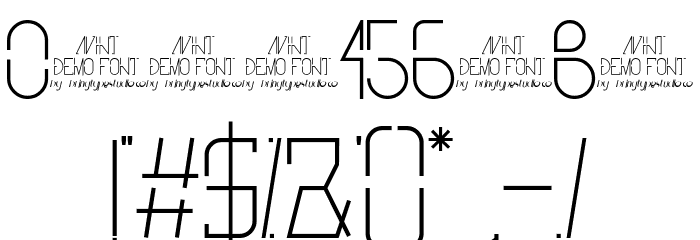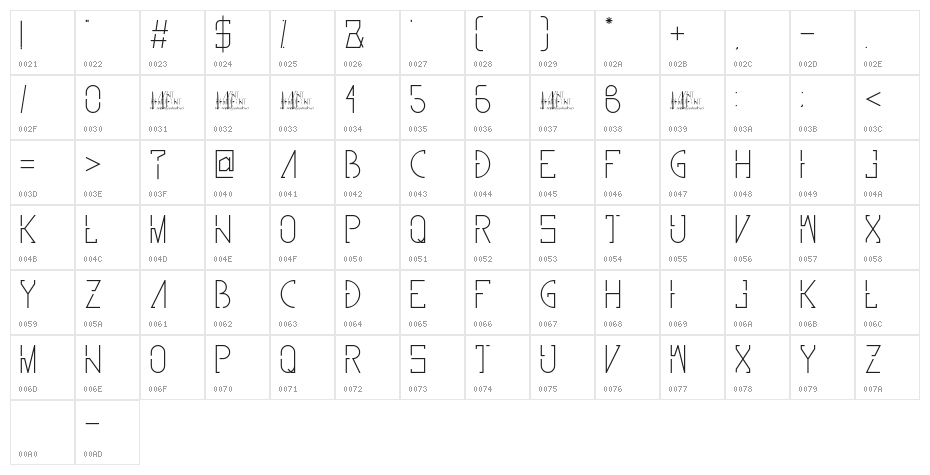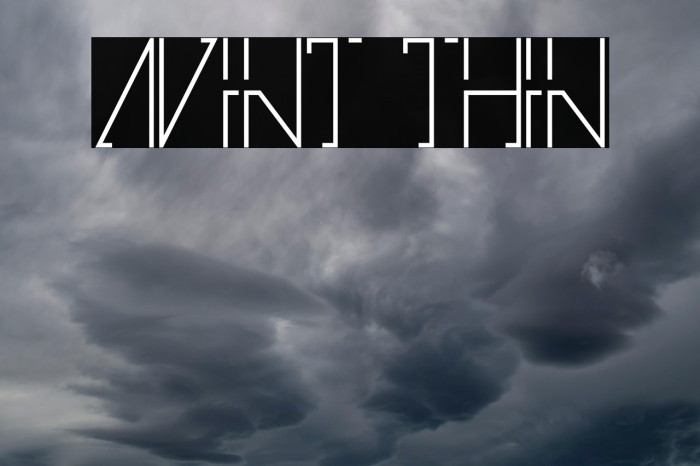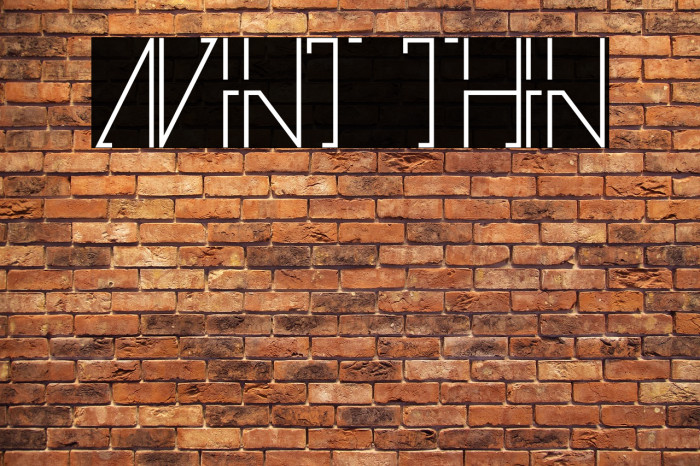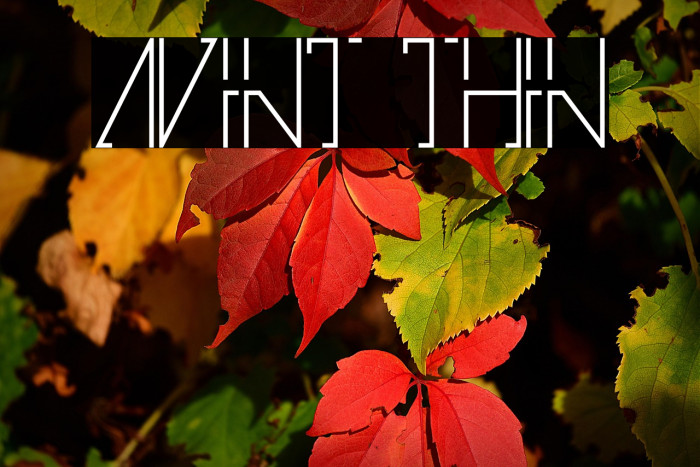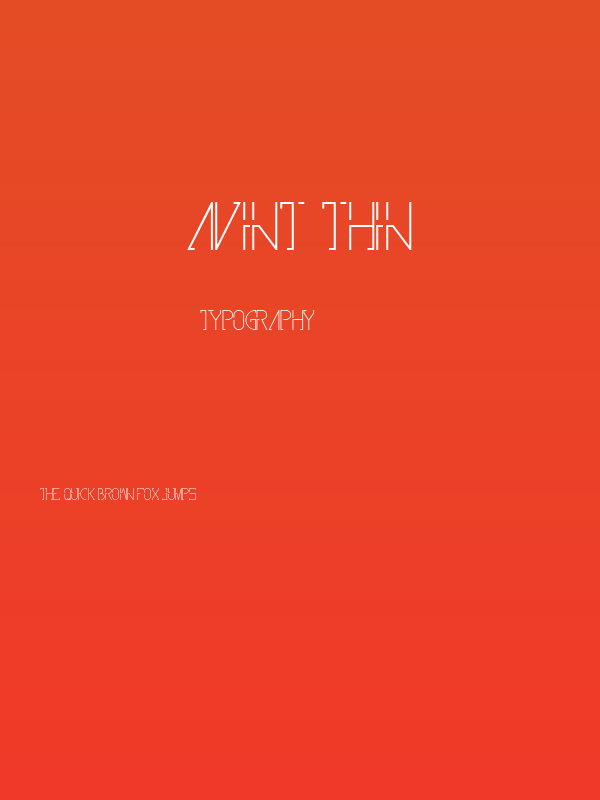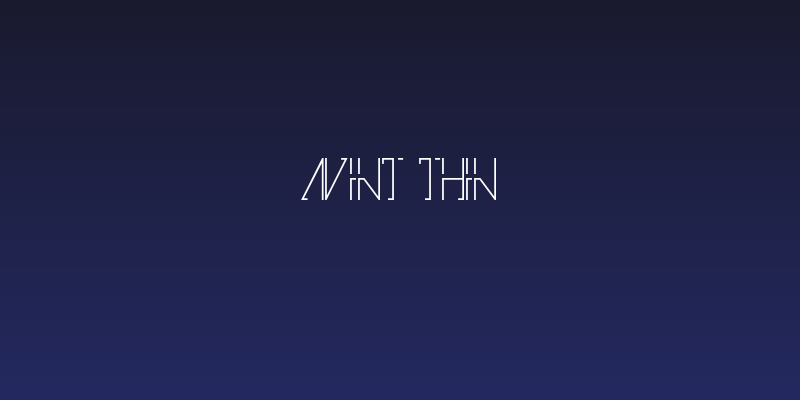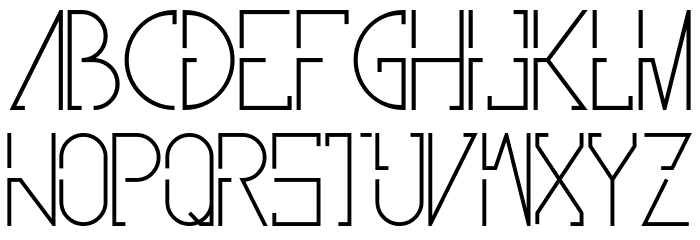
Avint Thin Font
Avint Thin Description
This font features a geometric and modern design with thin, clean lines. Each character is crafted with precision, showcasing a unique blend of angular and circular elements. The uppercase letters are particularly striking, with a futuristic aesthetic that is both minimalistic and sophisticated. The lowercase letters maintain the same geometric style, providing consistency throughout the typeface. Numbers and special characters are designed to complement the alphabet, ensuring versatility in various design applications. The overall look is sleek and contemporary, making it suitable for projects that require a modern touch.
| Proposed Projects | Ideal for tech branding, modern posters, futuristic designs, and digital interfaces. |